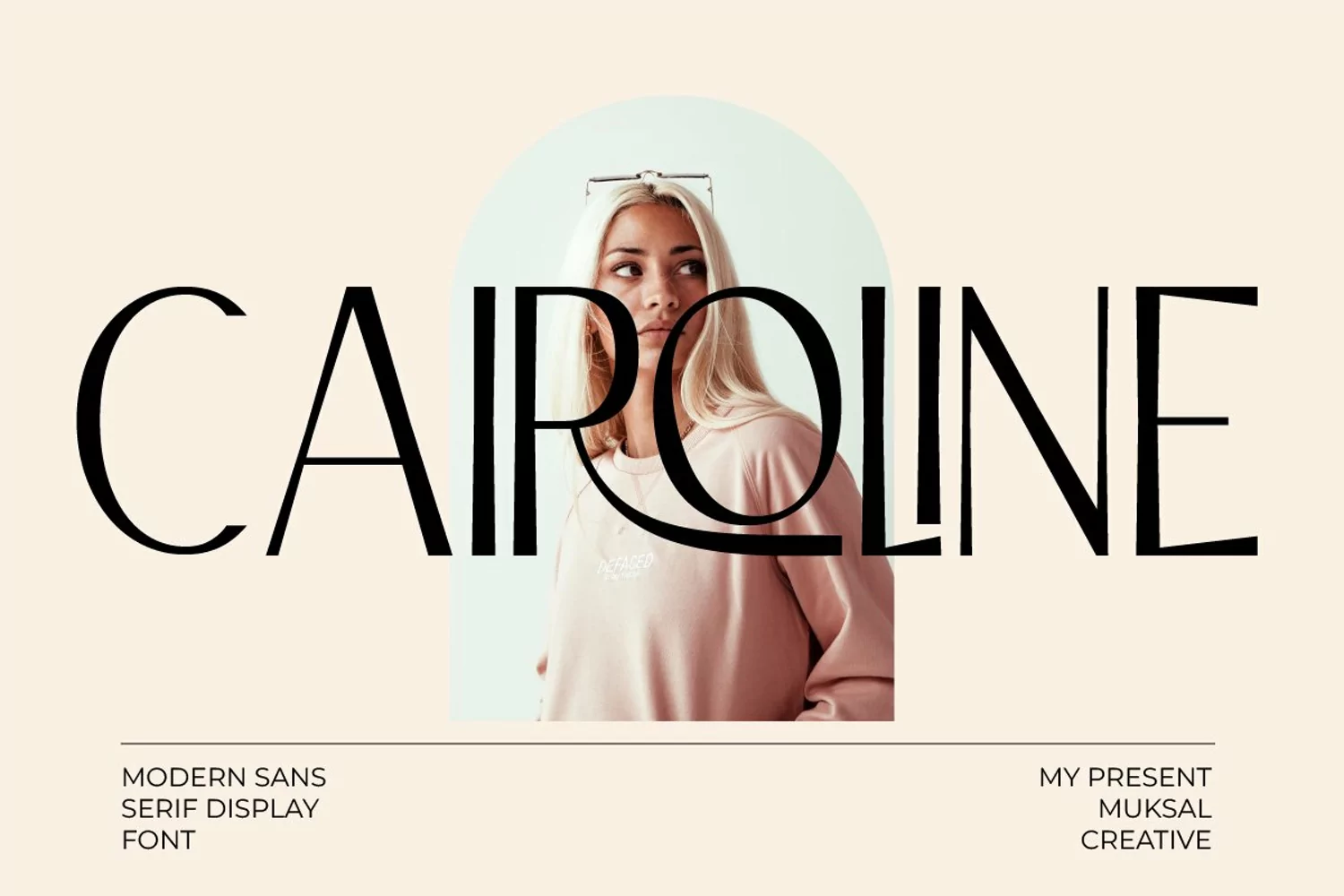
Cairoline
Caroline Modern Display sans serif Font, special glyphs, ornament and multilingual support. It's a very versatile font that works great in large and small sizes. Perfect for editorial projects, Logo design, Clothing Branding, product packaging, magazine headers, or simply as a stylish text overlay to any background image.
Lowercase and Uppercase
Ligatures
Numerals & Punctuation